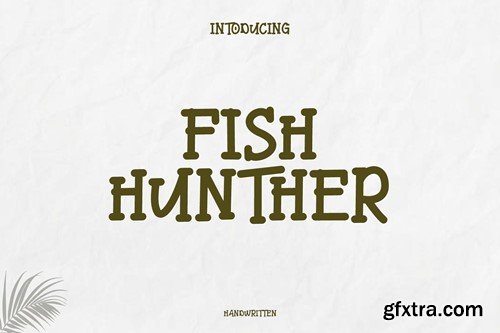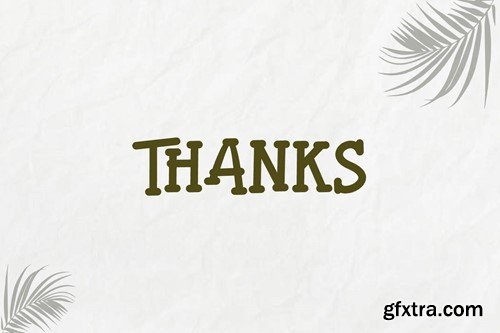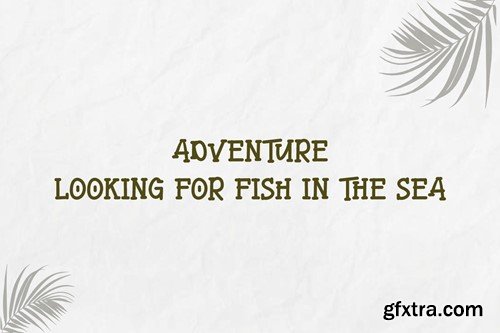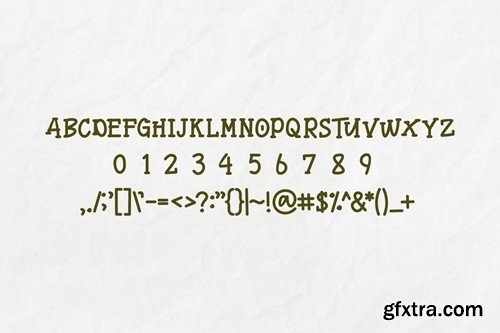
鱼猎手书Font FQ832MZ
Fish Hunther Font Handwritten FQ832MZ
Fish Hunther Font Handwritten
Introducing our new product Fish Hunther Font, Modern Font
Fish Hunther Font is an elegant and authentic display font.